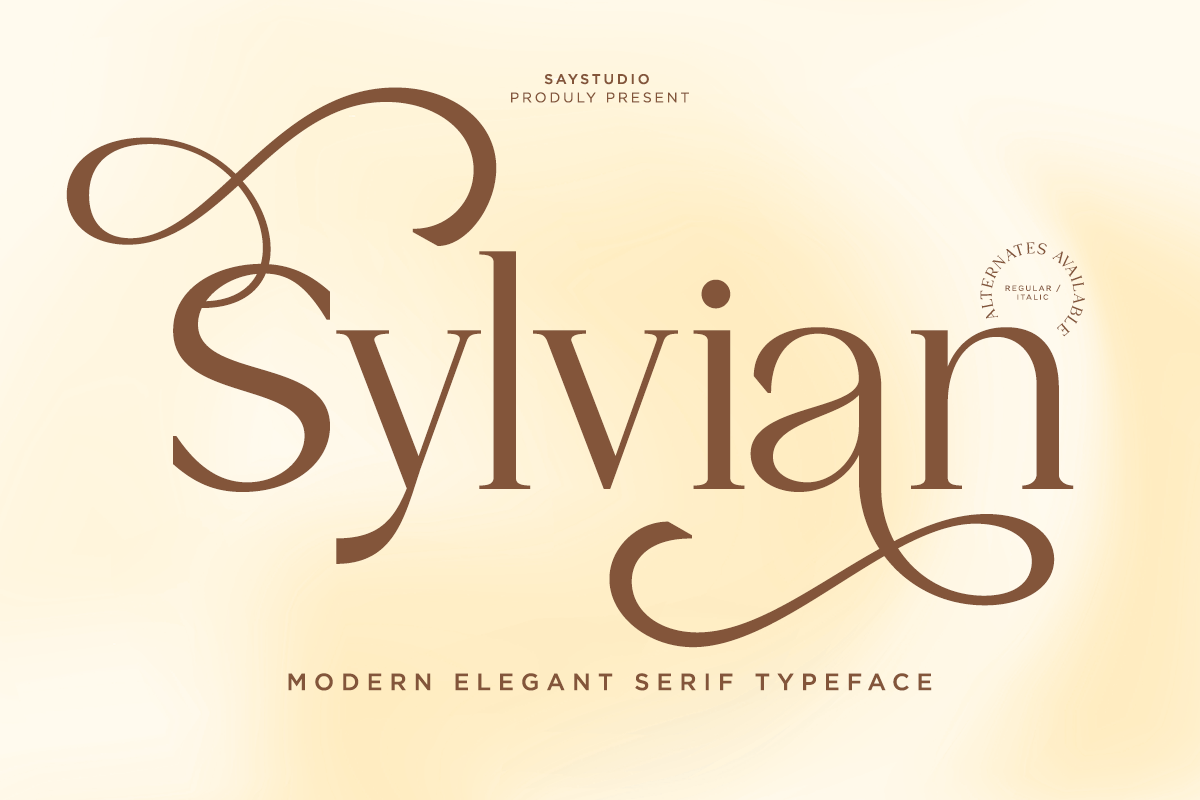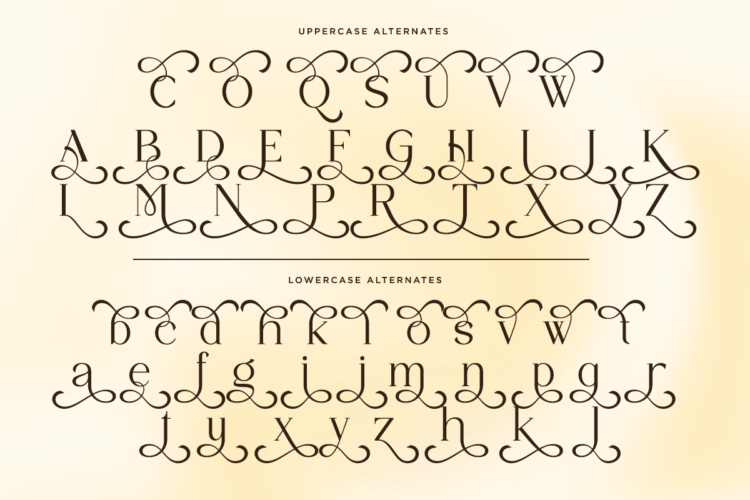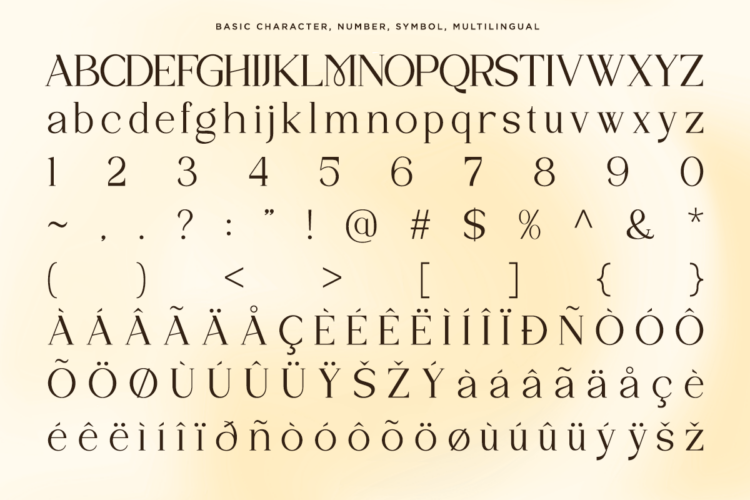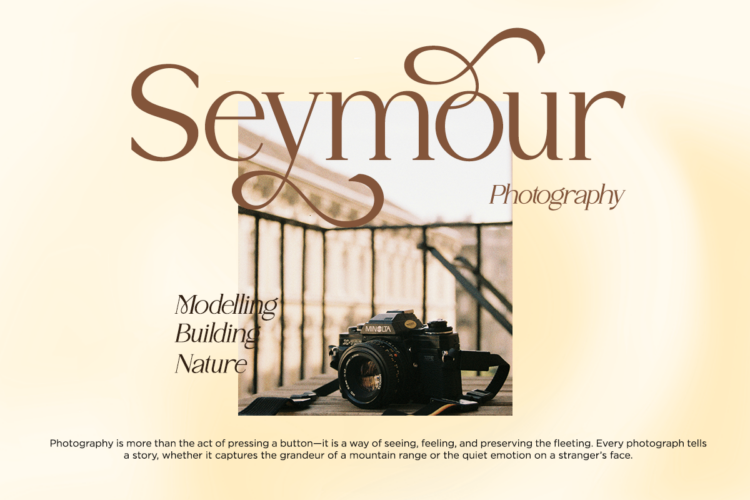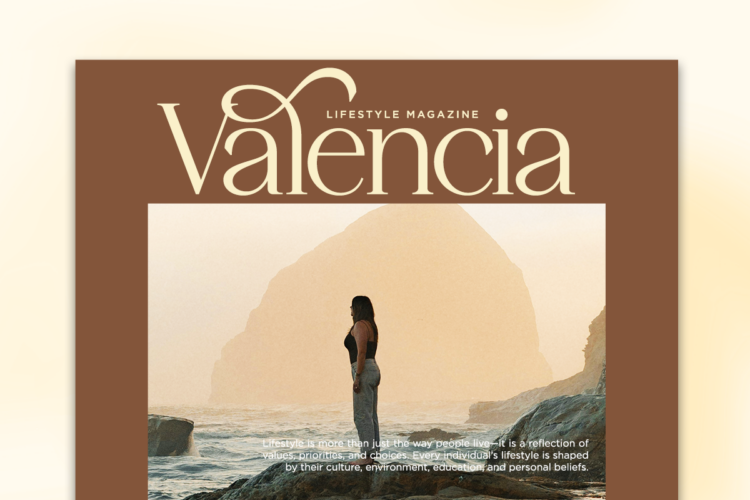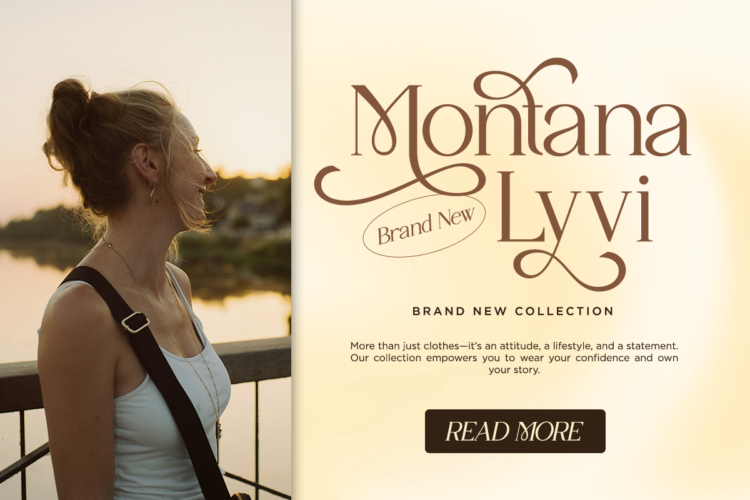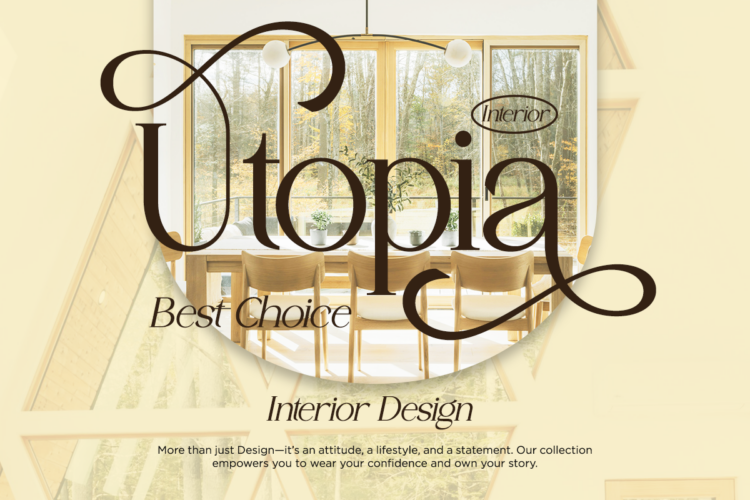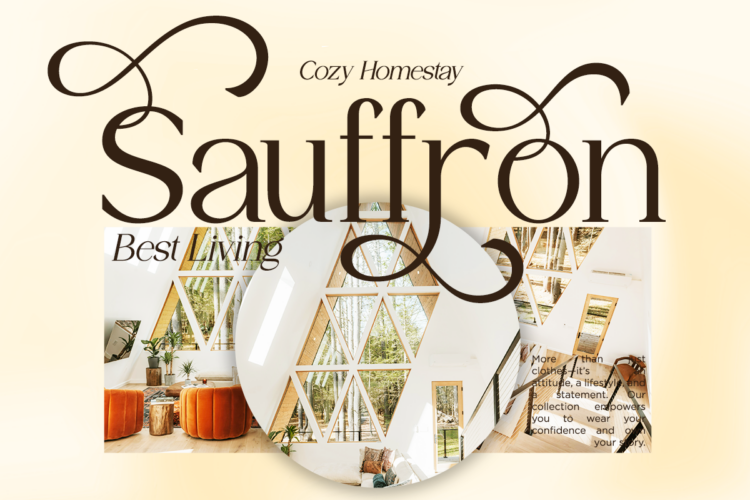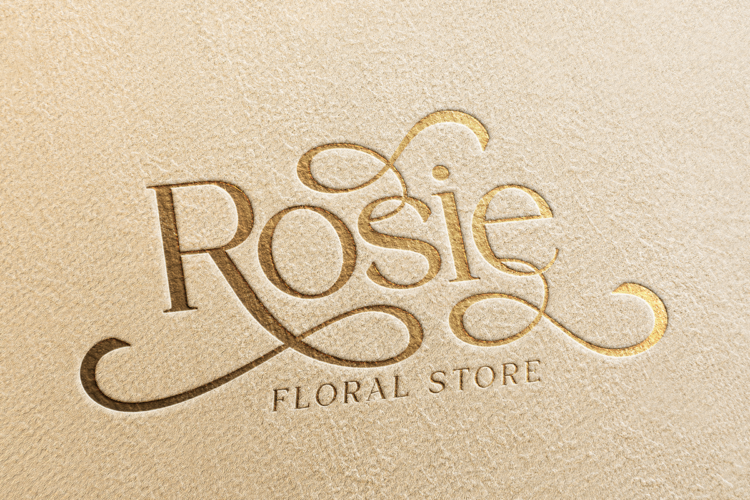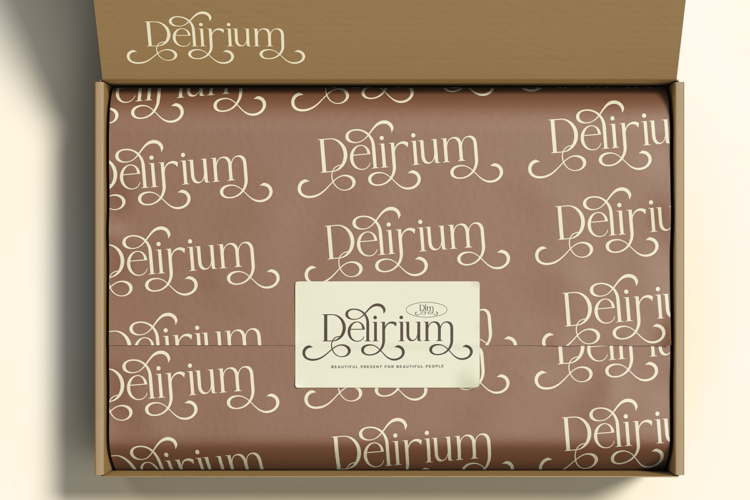
Sylvian – Elegant Modern Serif Typeface
Sylvian is an elegant modern serif typeface that beautifully combines graceful curves with luxurious swashes, creating a timeless and sophisticated visual identity. Designed with refined ligatures, decorative alternates, and flowing letterforms, Sylvian brings an artistic touch to every design while maintaining exceptional readability. Its classic elegance makes it perfect for brands seeking a premium and memorable appearance.
Created for luxury branding, fashion editorials, wedding invitations, beauty products, jewelry collections, boutique businesses, interior design, cosmetics, magazines, and premium packaging, Sylvian offers remarkable versatility. Featuring multilingual support, OpenType features, stylish alternates, elegant swashes, numerals, and complete punctuation, it provides everything needed to craft sophisticated visual experiences across both print and digital media.
Whether you’re designing elegant logos, editorial headlines, wedding stationery, luxury packaging, social media campaigns, website branding, business identities, or high-end marketing materials, Sylvian delivers refined beauty with effortless charm. Its decorative serif style adds a romantic yet contemporary character, making it the perfect choice for designers who appreciate timeless elegance and premium typography.